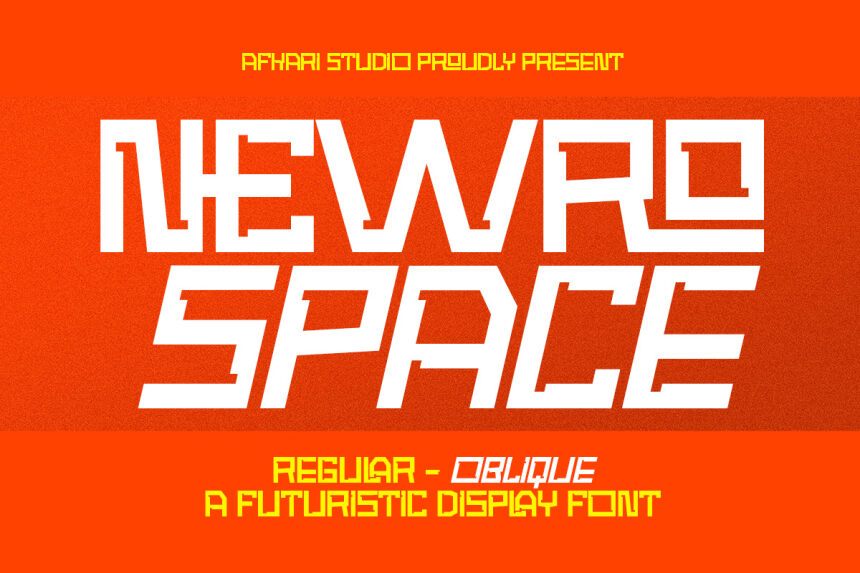
Newro Space font by Afkari Studio is a free futuristic display typeface with a bold, blocky rhythm that feels ripped straight from an arcade cabinet or sci‑fi control panel. Its squared curves, tight zigzag angles, and chunky pixel-like shapes create a solid, mechanical texture that still reads cleanly at a glance. The letters stack into a dense, monospaced-feeling grid, giving every word a strong, engineered presence that grabs attention fast.